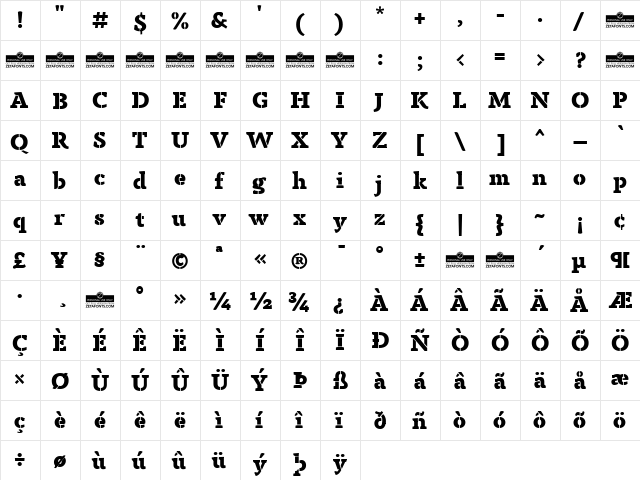
Anaphora Stencil ExtraBold
| Foundry | Studio Kmzero |
| Designer | Francesco Canovaro |
Design Context for Anaphora Stencil Typeface
Anaphora Stencil has the rough pragmatism of spray-painted stencil signage, adding a raw, street-level authenticity to designs. The heavy weight commands attention and anchors typographic hierarchies.
Ideal for industrial branding, streetwear, military-adjacent aesthetics, and urban signage projects.